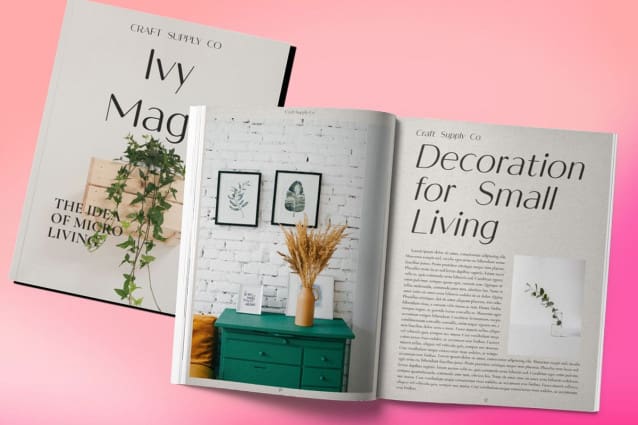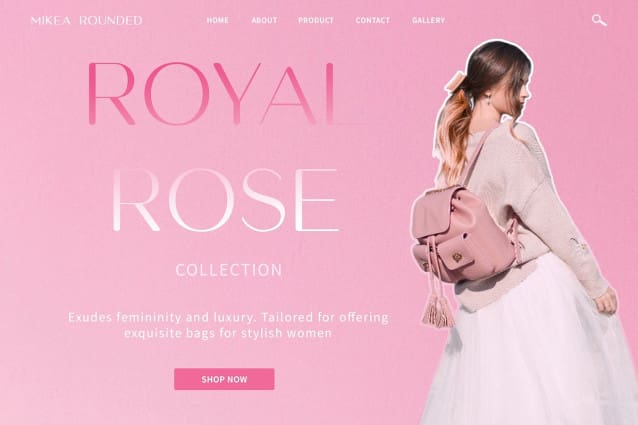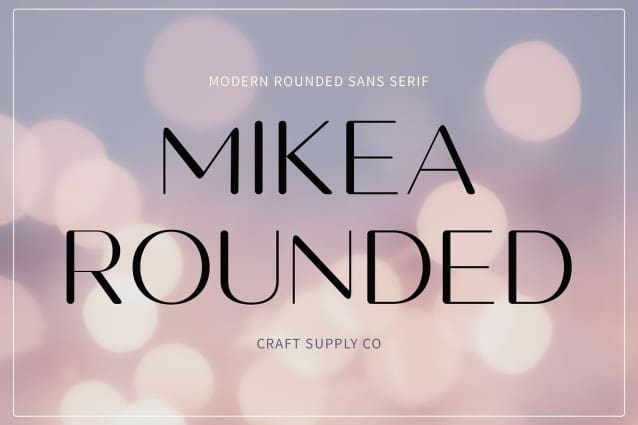
Mikea Rounded Font
Mikea Rounded Font: Embracing Futuristic Elegance. Sleek and Futuristic Mikea Rounded embodies the essence of futuristic design with its sleek sans serif style. Its high contrast and rounded stem endings exude a sense of modernity and innovation.
Elegant Softness Despite its futuristic edge, This font maintains an air of elegance and softness. The rounded stem endings add a subtle touch of warmth, making the font inviting and approachable.
Ideal for Modern Designs Tailored for contemporary projects, This font is perfect for modern designs that require a sophisticated yet approachable typeface. Its high contrast and rounded elements make it versatile for various applications.
Versatility in Application From branding to editorial design and digital interfaces, This font adapts seamlessly to different design contexts. Its futuristic aesthetic and soft elegance make it a valuable asset in any designer’s toolkit.
Futurism Meets Elegance This font blends futuristic elements with timeless elegance, offering a versatile typeface that adds a touch of sophistication to modern designs. With its sleek contours and rounded details, it elevates any project with a sense of innovation and refinement.